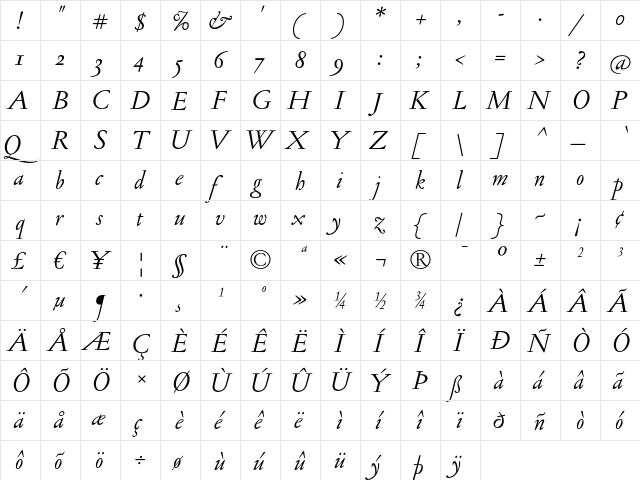
Jannon Ant OSF Italic
| Foundry | Frantisek Storm, stormtype.com |
Design Context for Jannon Ant OSF Typeface
Jannon Ant OSF is a composed and adaptable typeface that performs quietly and consistently across a wide range of design contexts. The dynamic lean of this cut emphasises speed and emphasis in any layout.
Pro Tip: Try Jannon Ant OSF for annotation and caption copy alongside an upright companion — the contrast in angle creates a dynamic but ordered typographic system.